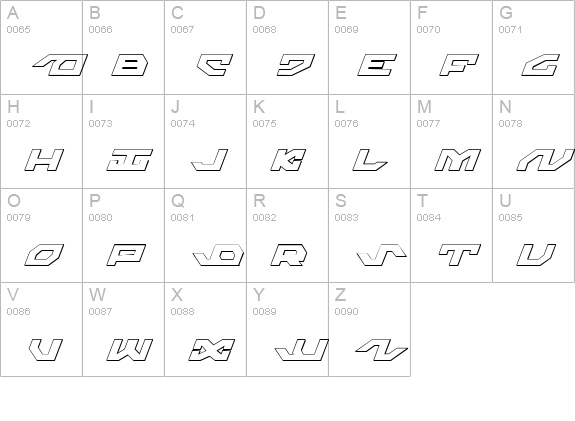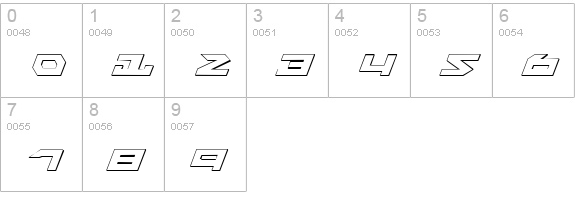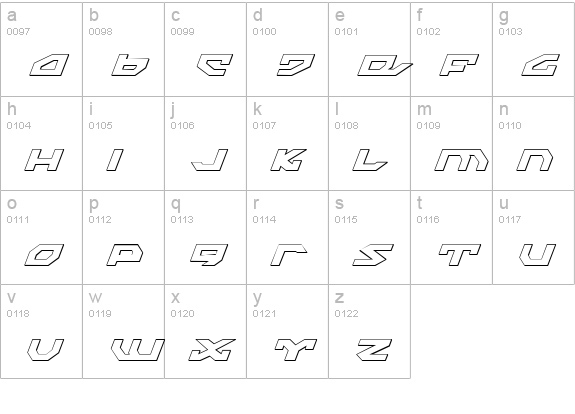
Nightrunner Shadow Italic is a distinctive, italic variant in the Nightrunner typeface family \xE2\x80\x94 well suited to design and typography projects.
Nightrunner Shadow Italic font is a bold and dynamic typeface that exudes a sense of mystery and adventure. With its unique shadow effect and italic styling, this font is perfect for adding a touch of intrigue to your designs. Whether you're working on a poster, logo, or website, Nightrunner Shadow Italic font will make a bold statement and capture the attention of your audience. What makes Nightrunner Shadow Italic font even more appealing is that it is available for free download at FontsMarket.com. This means you can easily access this stylish font and use it in your projects without any cost. Don't miss out on the opportunity to enhance your designs with the captivating Nightrunner Shadow Italic font – download it for free today!